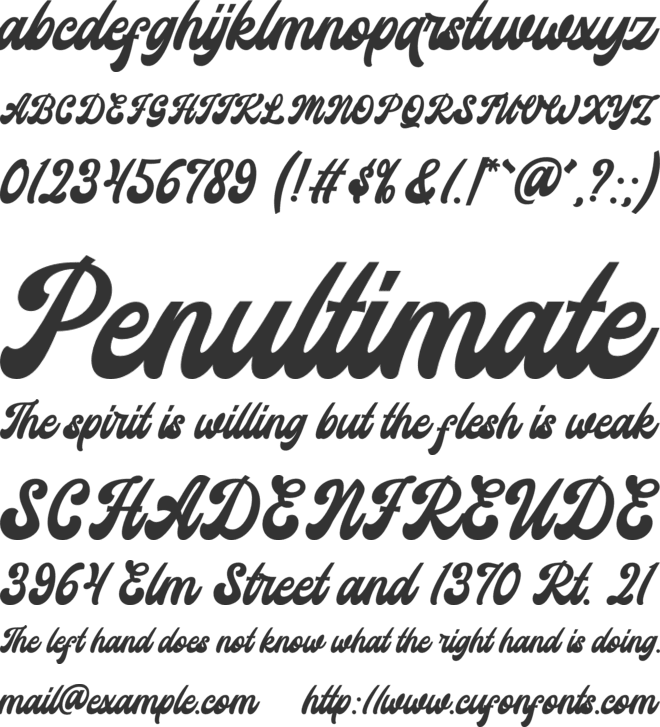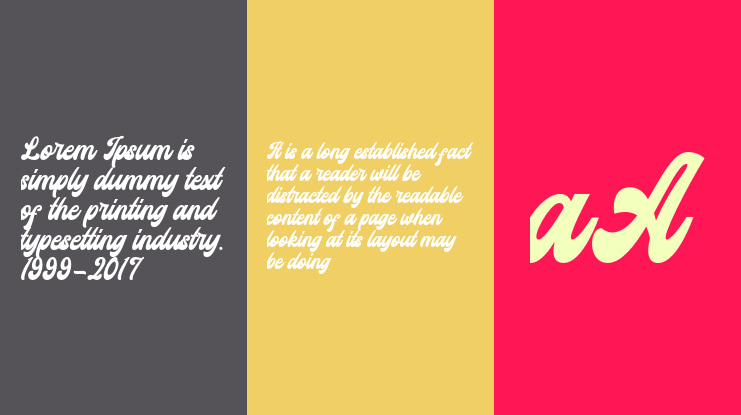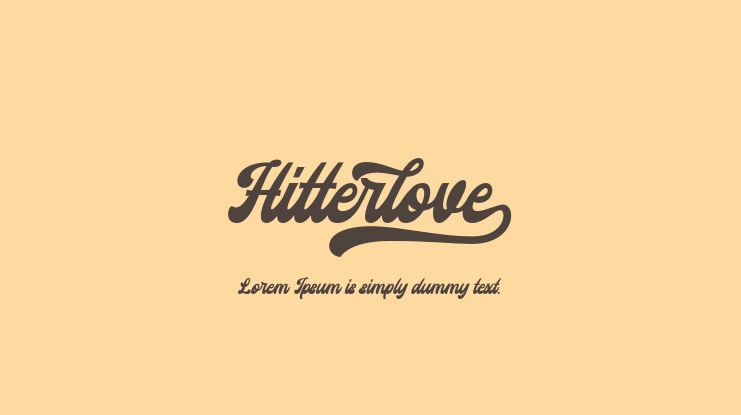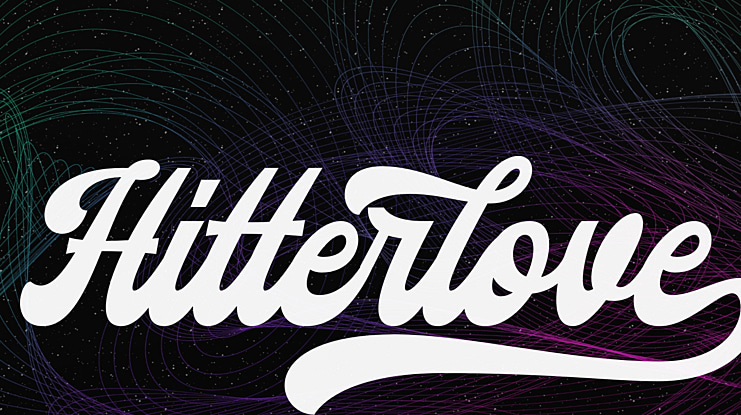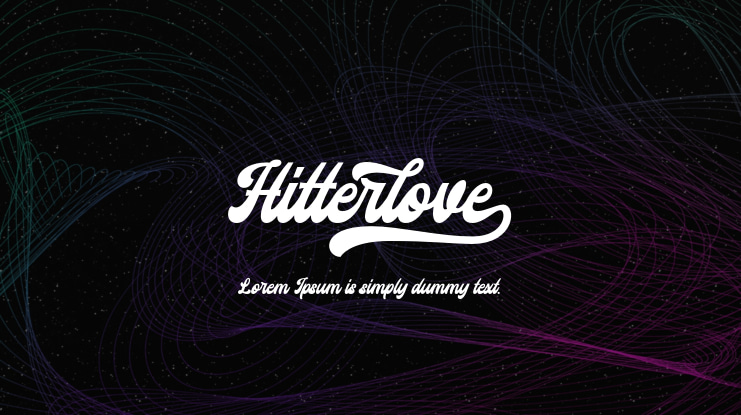
Hitterlove Font
Hitterlove is a retro, bold script font that will bring you back to the 60s – 80s. This typeface has an extrude version, so you can create a retro effect with ease. This typeface is perfect for logos, invitations, labels, magazines, books, greeting/wedding cards, packaging, fashion, make-up, stationery, novels, labels, or other advertising purposes.
This font is PUA encoded, which means you can access all of the glyphs and swashes with ease!